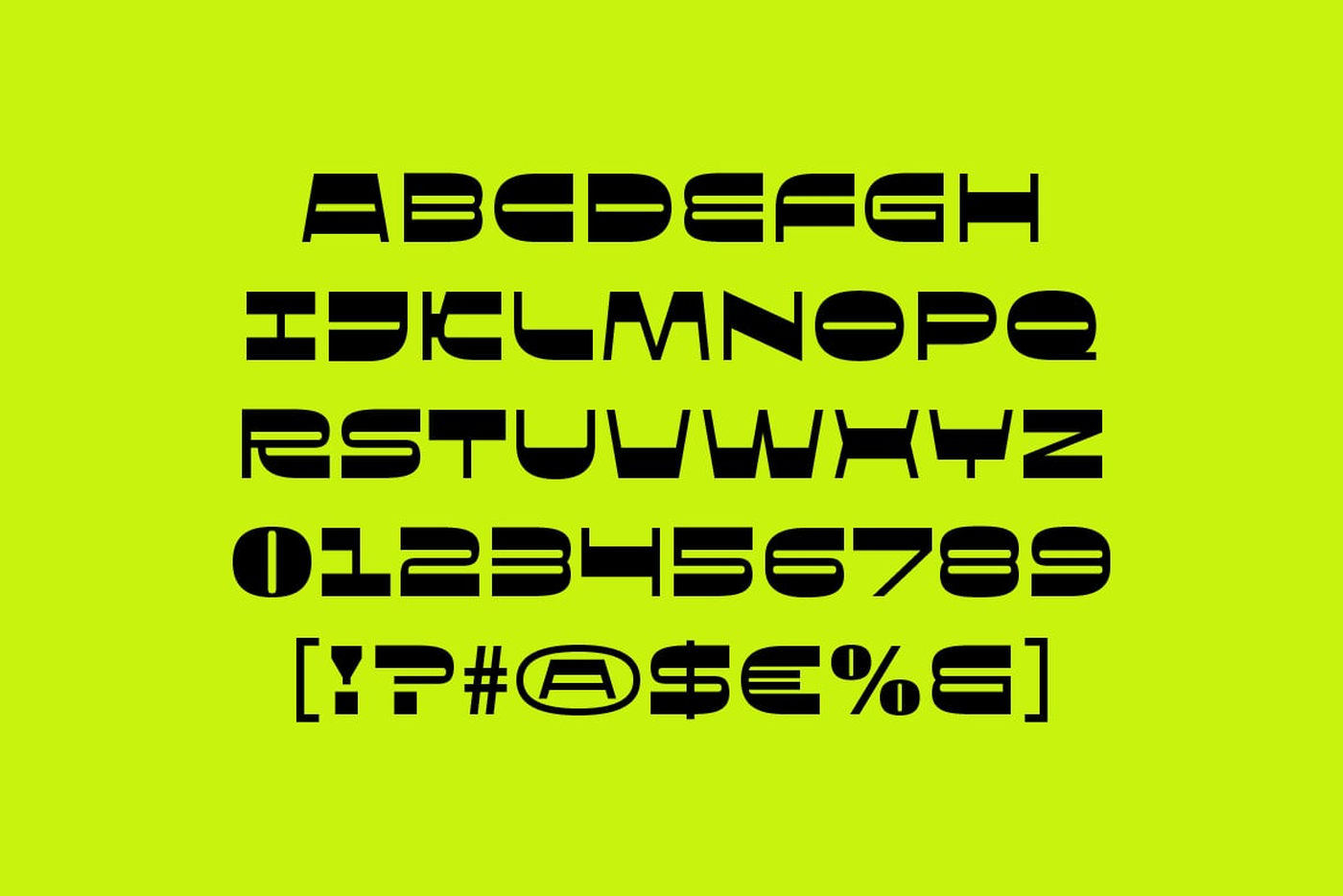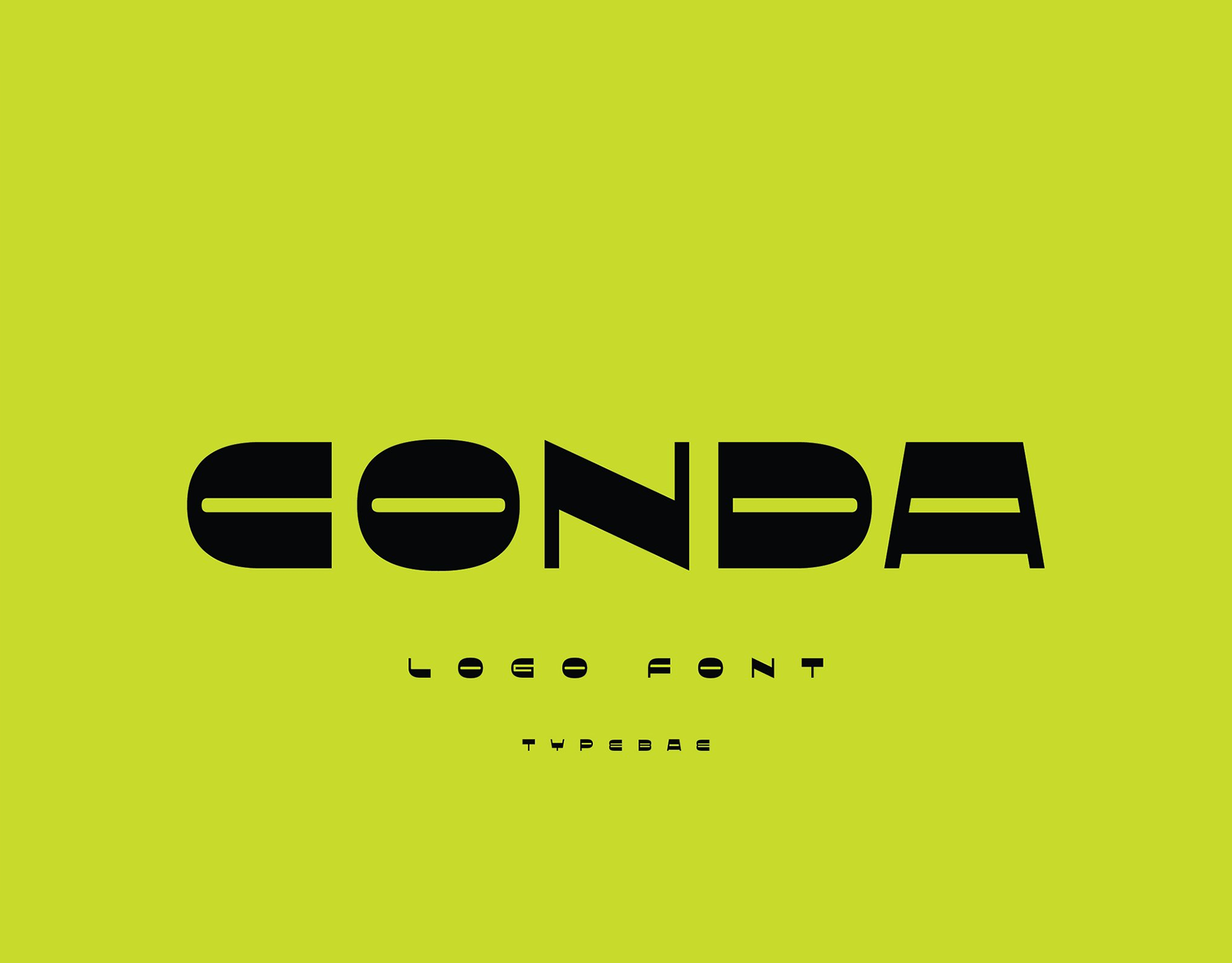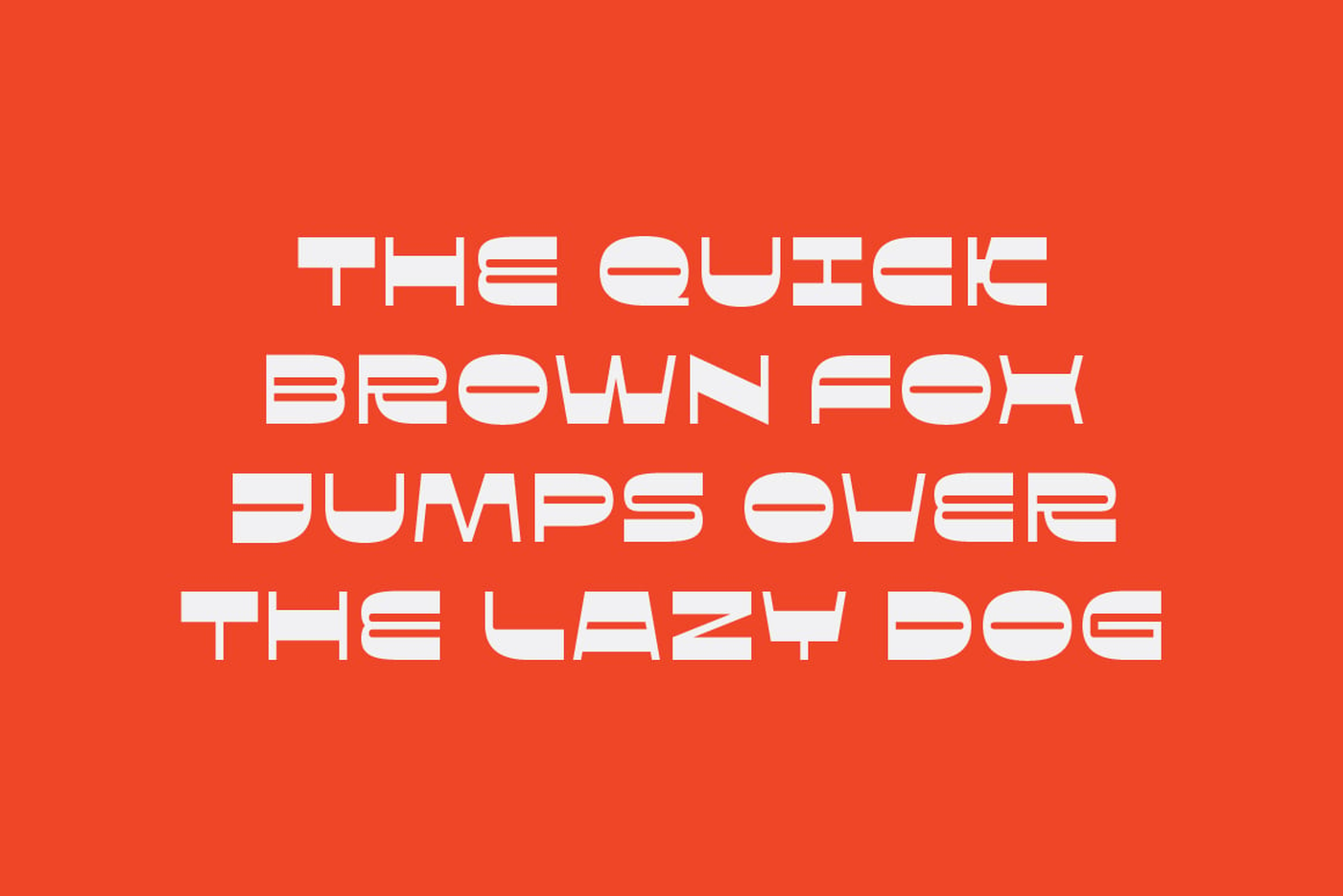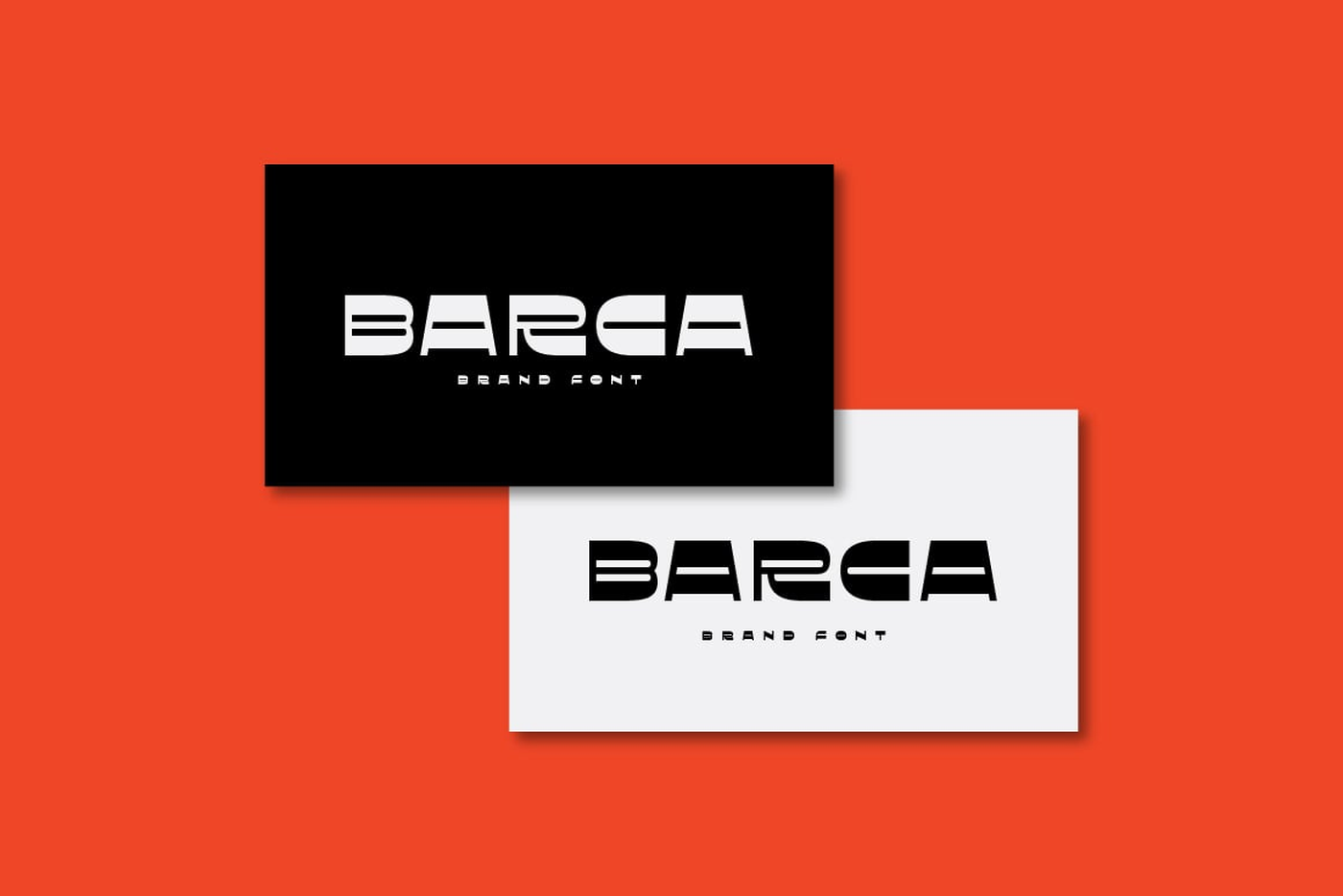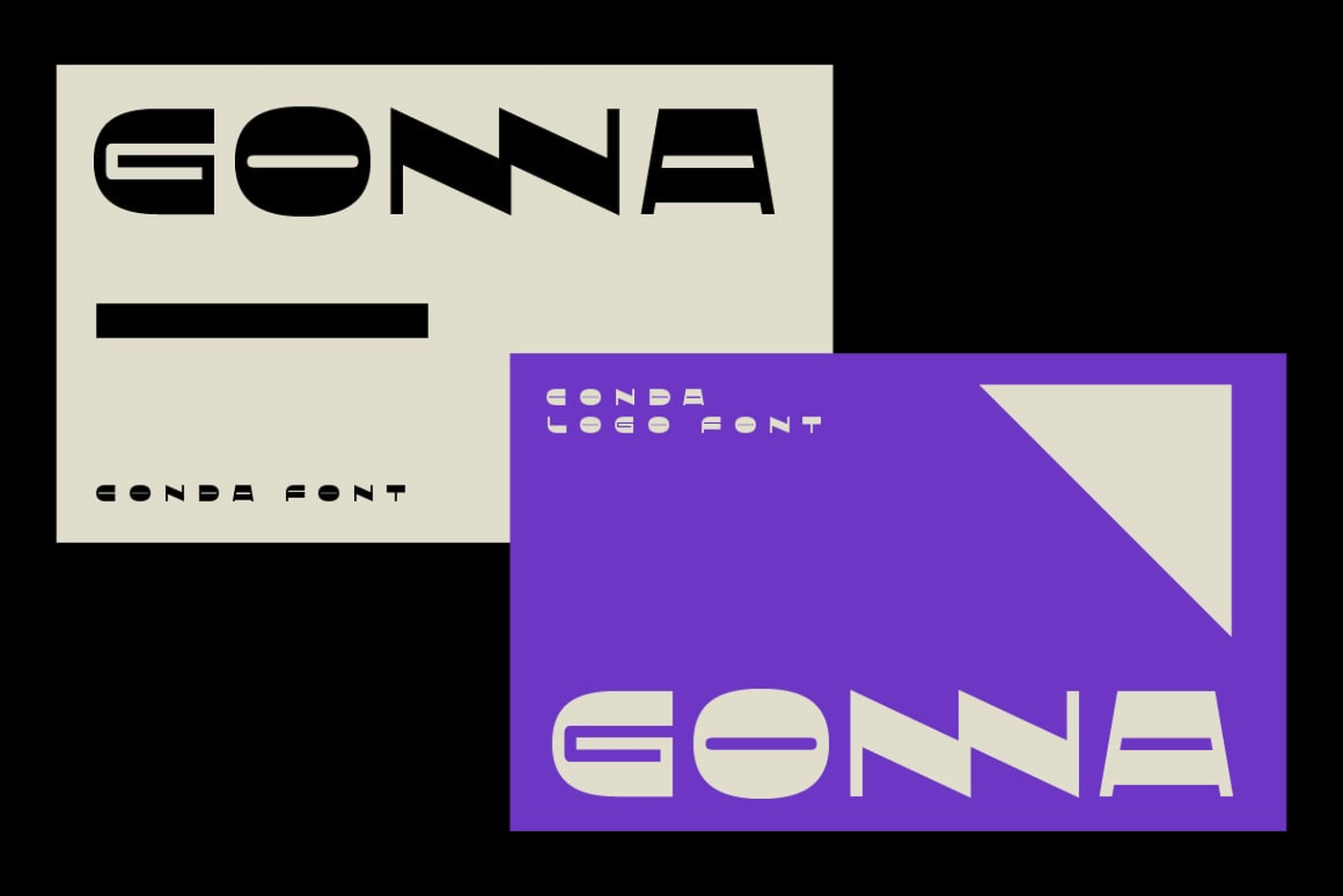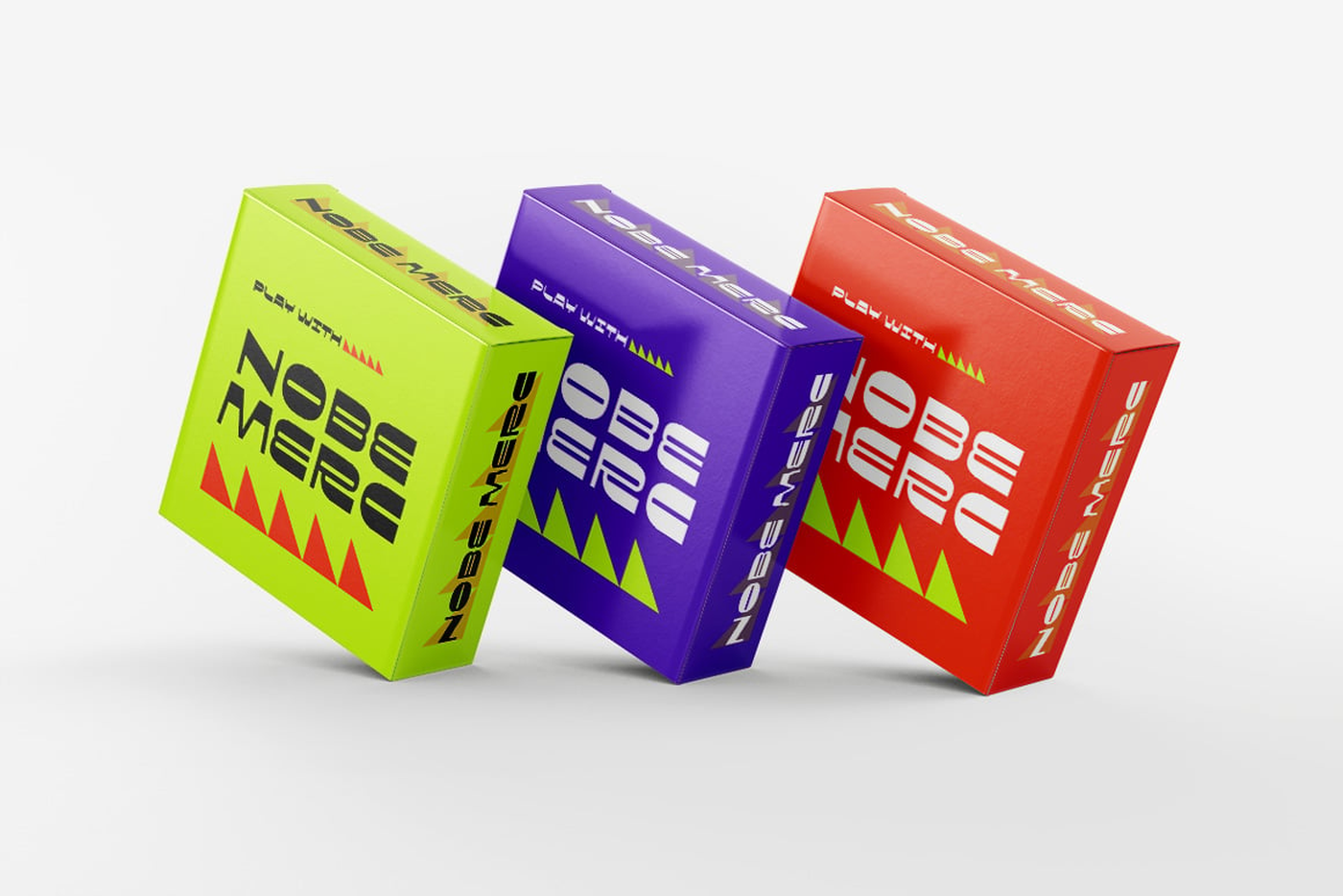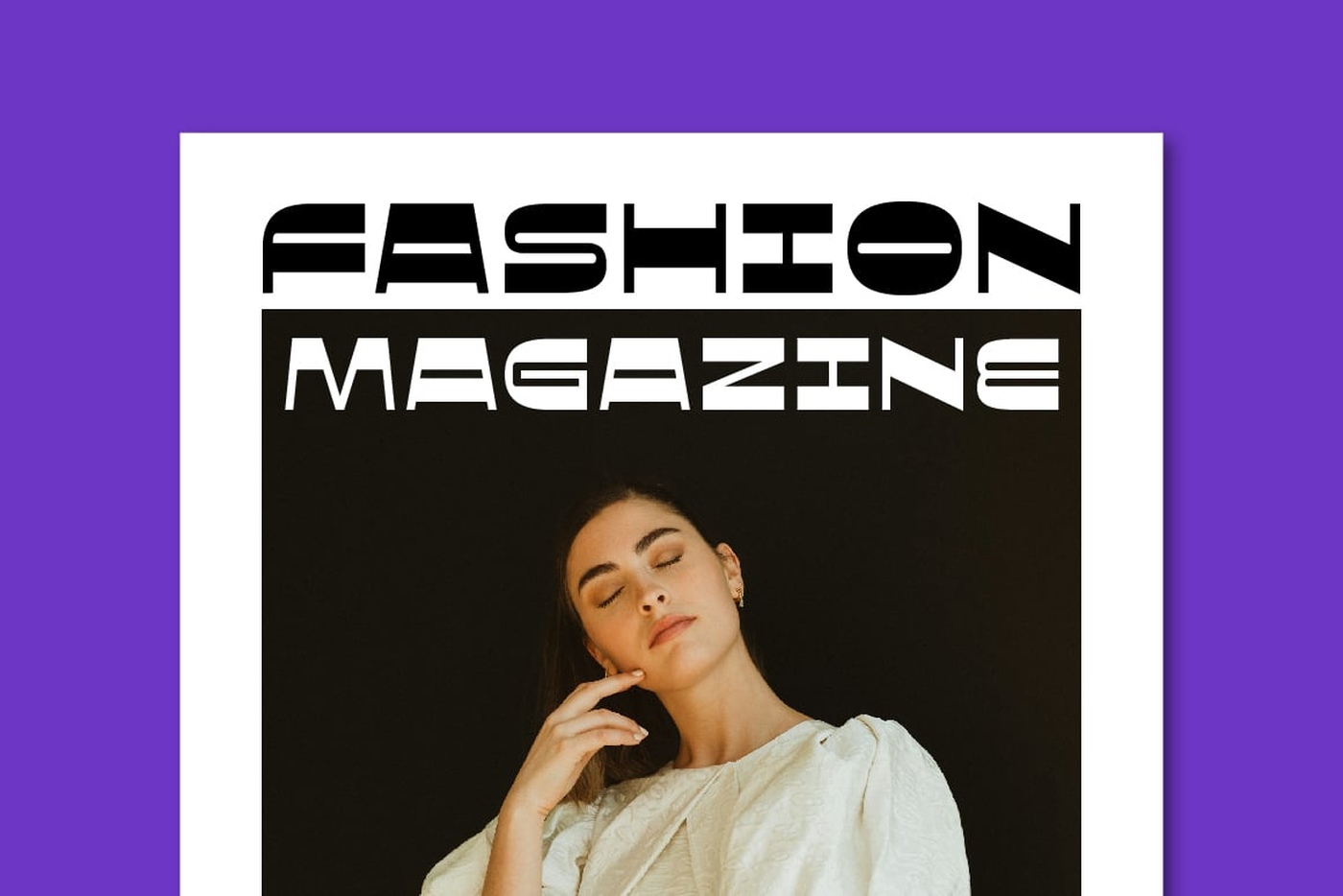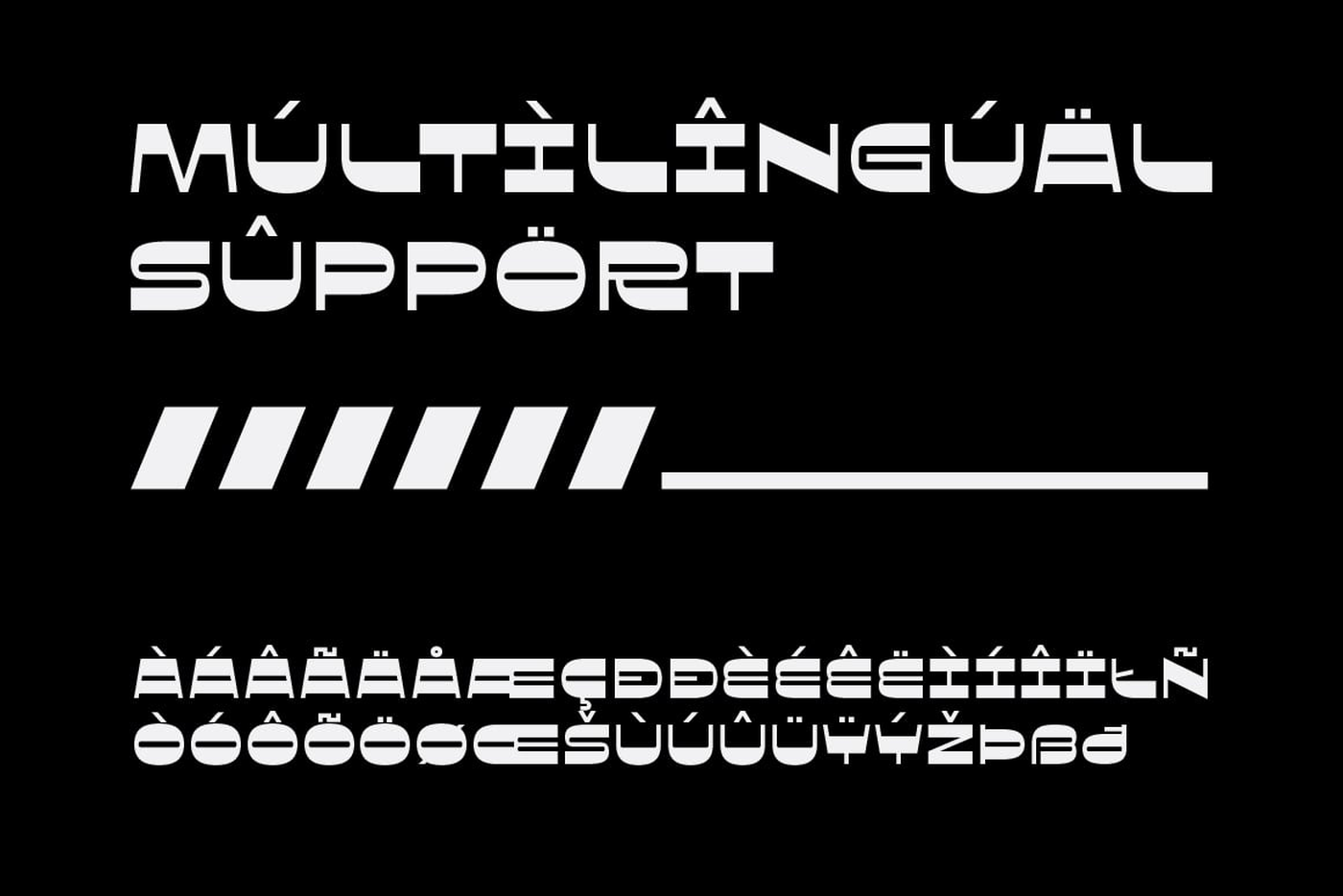
Conda - Bold Logo Font
Conda is a bold futuristic display typeface with geometric shapes and sharp modern details. Designed to create strong visual impact, it is perfect for logos, branding, packaging, posters, headlines, sports, tech, and fashion designs. Its solid structure makes your typography look confident, clean, and eye catching.
Designer: Typebae
Font: Conda